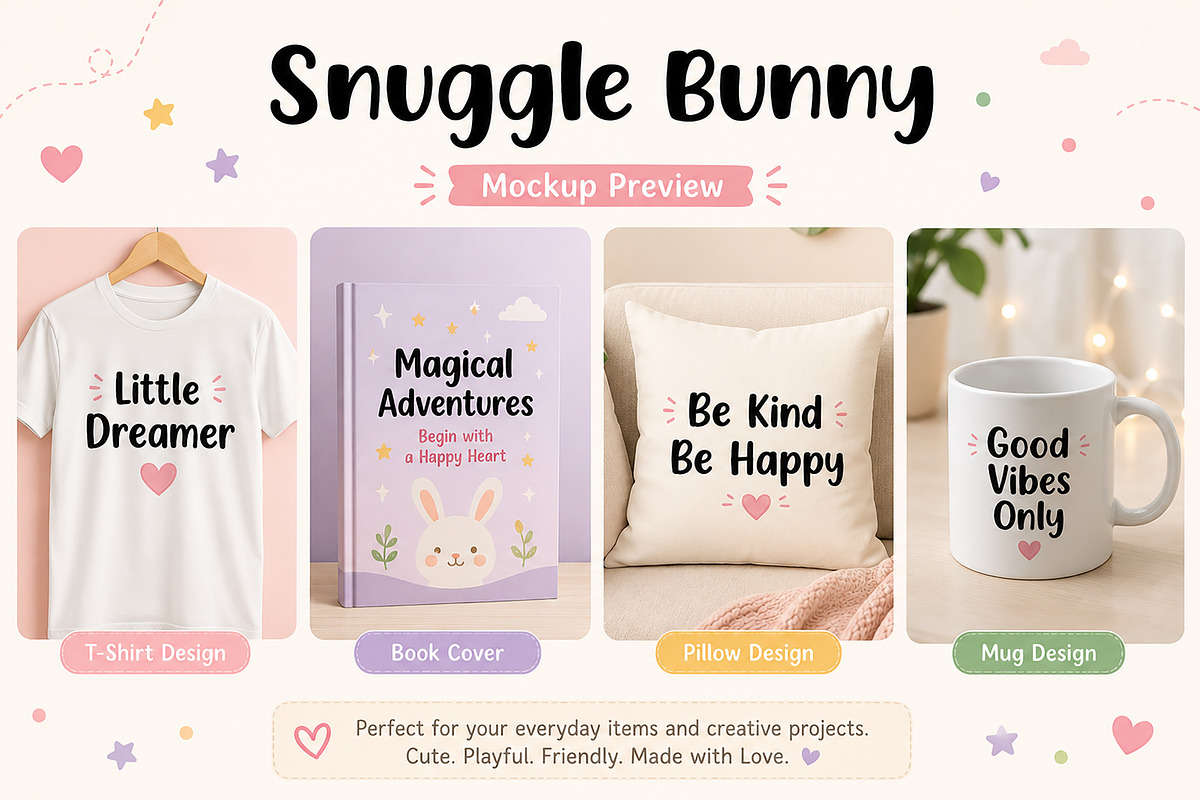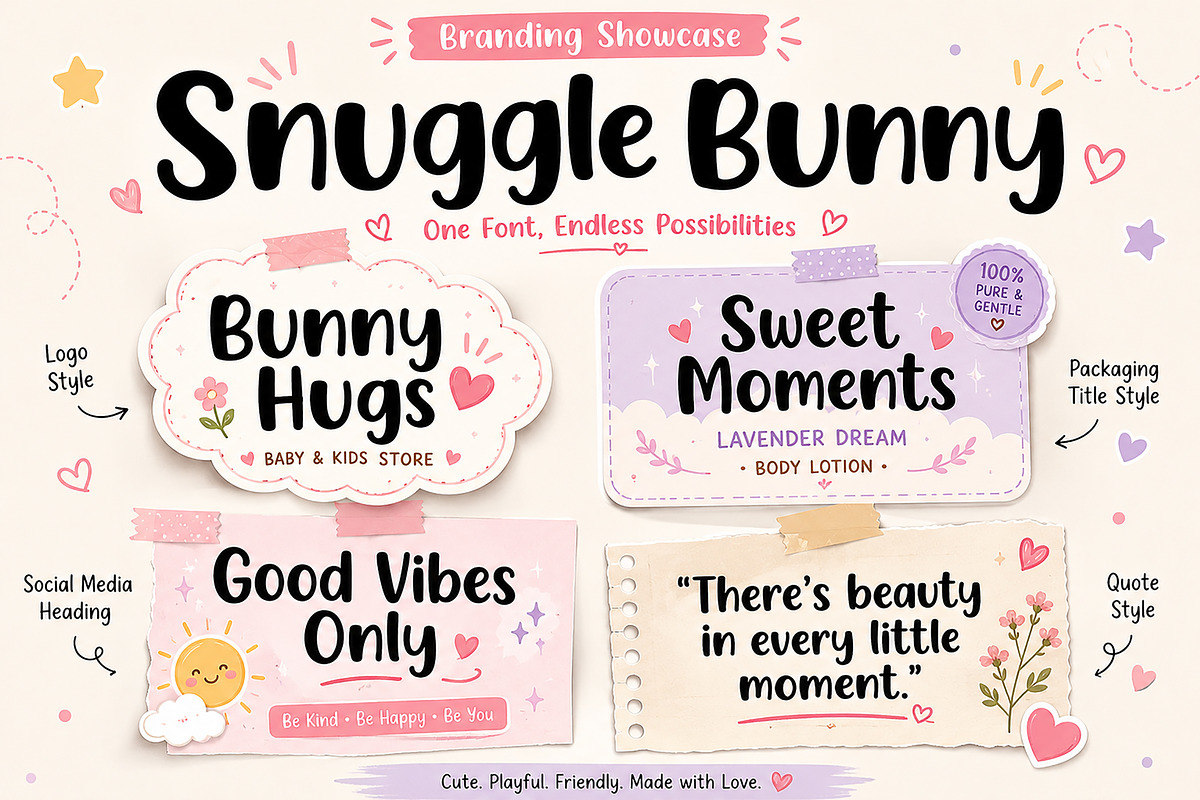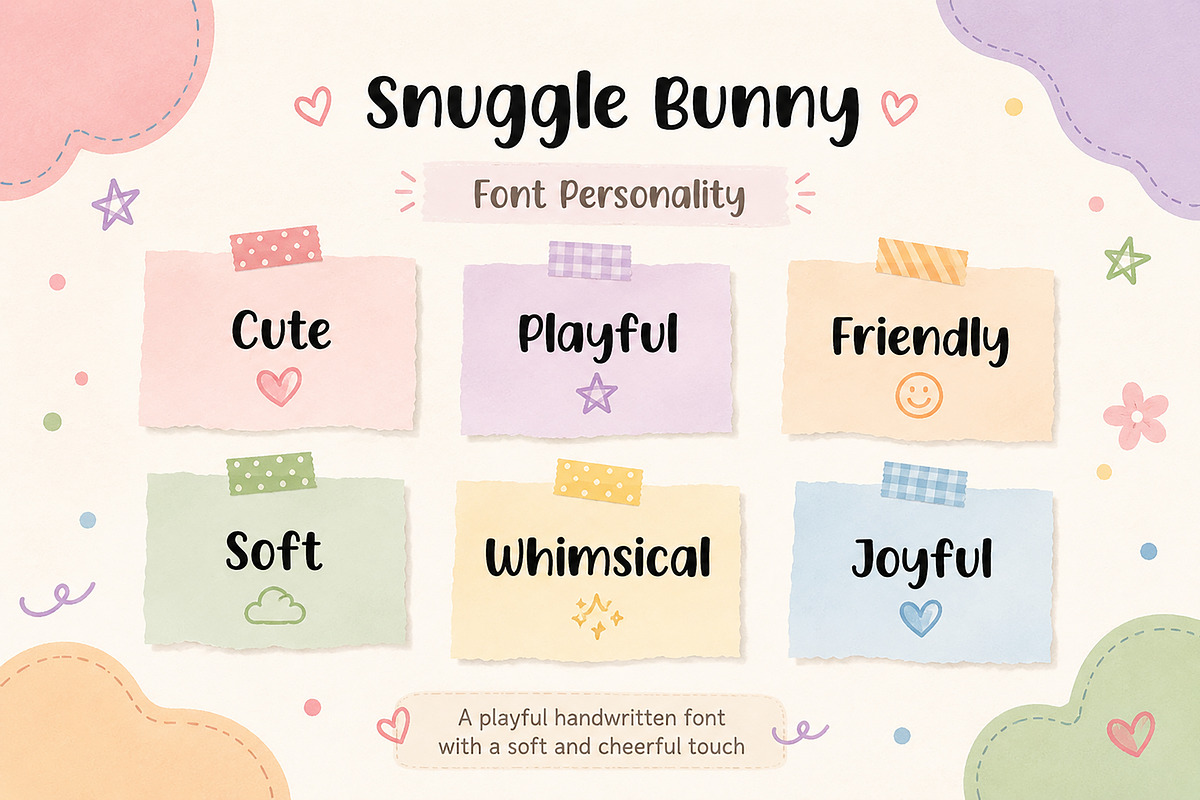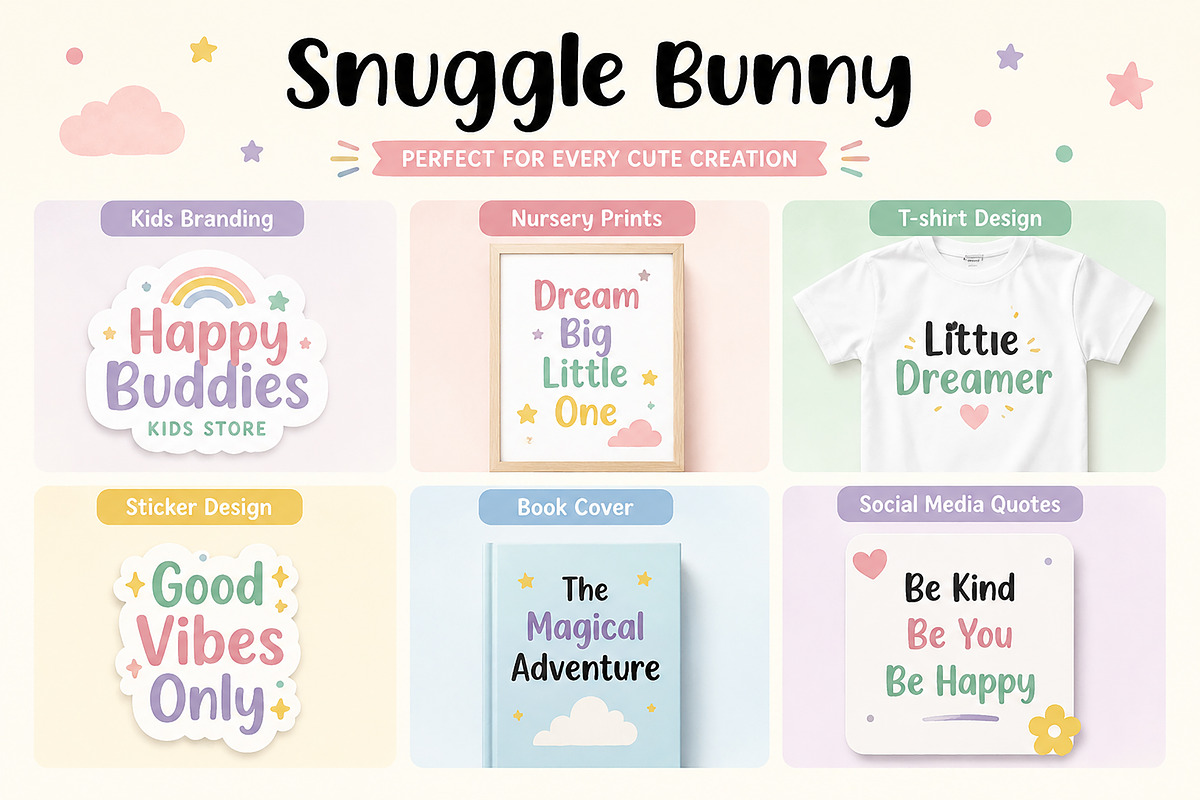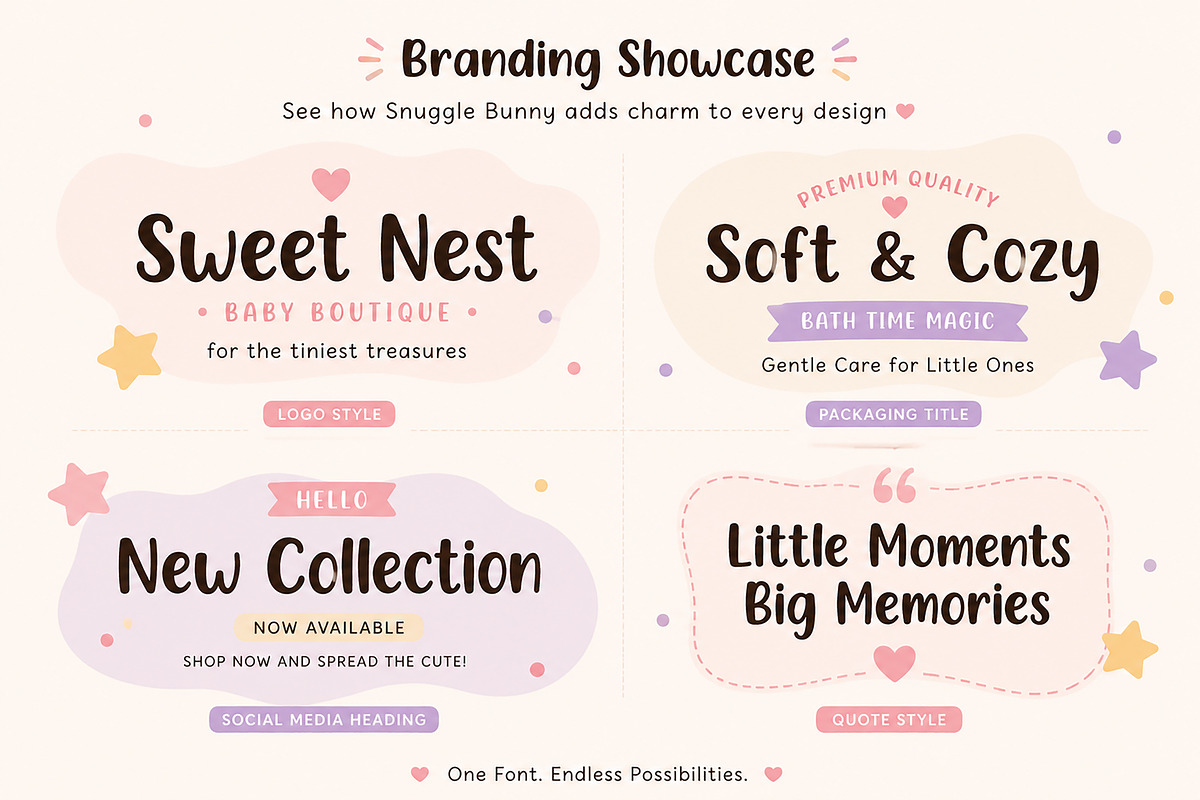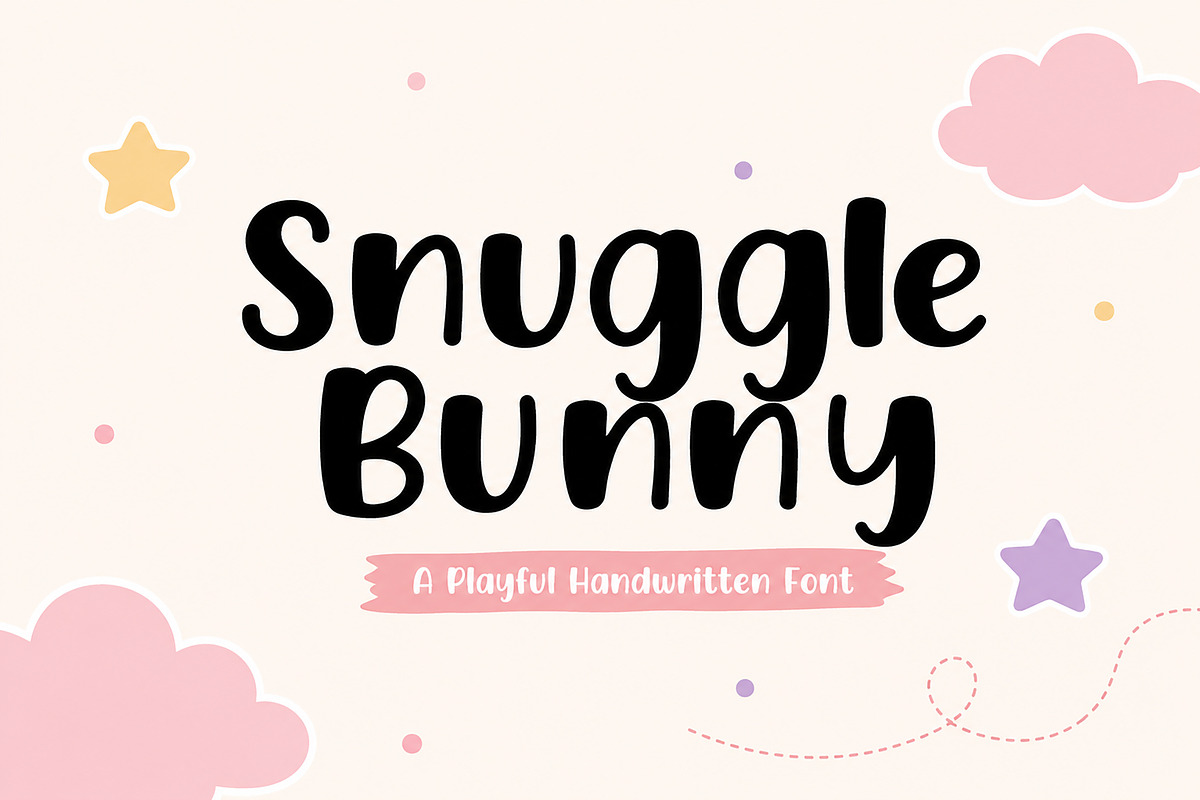
Snuggle Bunny
Snuggle Bunny – playful handwritten font
Snuggle Bunny is a sweet and playful handwritten font crafted to bring warmth, charm, and happiness into your creative projects. With its soft curves, rounded shapes, and friendly personality, this font is perfect for children’s branding, nursery prints, stickers, t-shirt designs, book covers, social media posts, and adorable packaging.
Designed with a cozy and cheerful aesthetic, Snuggle Bunny adds a lovable handmade touch that feels fun, cute, and approachable. Its clean readability and whimsical style make it ideal for both personal and commercial projects.
Whether you're creating baby shower invitations, kids’ product packaging, classroom decorations, or cute merchandise, Snuggle Bunny delivers a delightful and heartwarming look.
Kids Branding
Nursery Wall Art
Baby Shower Invitations
T-shirt Designs
Sticker Designs
Social Media Quotes
Cricut Projects
Printable Crafts
Bring your designs to life with the soft and joyful charm of Snuggle Bunny.